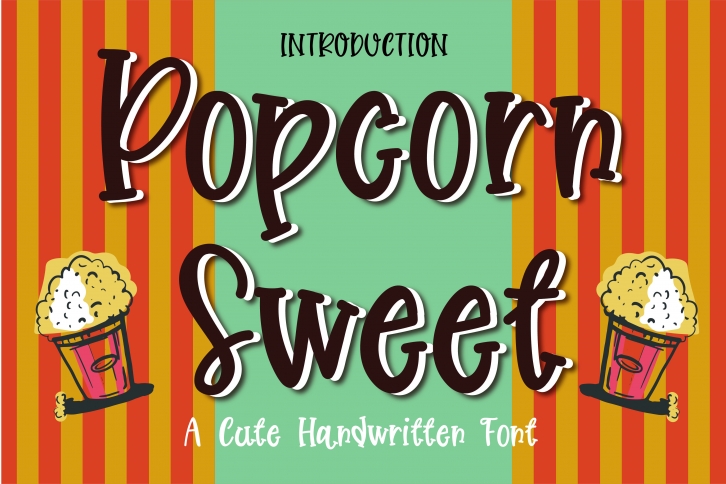
Popcorn Sweet is a cute, quirky and charming handwritten font. Whether you use it for cartoon related designs, children games or just any creation that requires a lovely touch, this font will be an amazing choice.